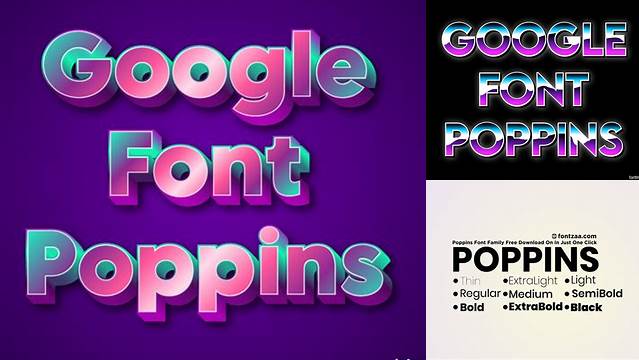
Poppins Font: A Deep Dive Into Google Fonts CSS
Hey guys! Ever wondered about those sleek, modern fonts you see all over the web? Chances are, you've stumbled upon Poppins. And if you're digging into website performance, you might've even looked at how it's loaded using Google Fonts CSS. So, let's get into fonts googleapis com css poppins and break it all down! We will explore every aspect of fonts googleapis com css poppins to give you a complete grasp on its function and optimization.
What is fonts.googleapis.com
?
Before diving into Poppins, let's understand where it lives. fonts.googleapis.com
is Google's dedicated server for hosting web fonts. This Content Delivery Network (CDN) ensures that fonts are delivered quickly and efficiently to users worldwide. Using a CDN like Google Fonts means you don't have to host the font files yourself, saving you bandwidth and server resources. Also, because many sites use Google Fonts, there's a good chance your visitors already have these fonts cached, making page load times even faster. It's a win-win! When a browser requests a font from fonts.googleapis.com
, Google's servers determine the optimal font file based on the user's browser and operating system. This ensures compatibility and the best possible rendering experience. The use of CDNs like Google Fonts is a critical component of modern web development, and fonts googleapis com css poppins is a prime example of how this technology is implemented. Ultimately, understanding how these fonts are served helps developers make informed decisions about performance and user experience.
Diving into the Poppins Font Family
Poppins is a geometric sans-serif typeface. It’s known for its clean lines and modern aesthetic. It's super versatile and works well for headings, body text, and everything in between. Its neutrality makes it a great choice for a wide range of projects, from corporate websites to creative portfolios. The font family includes a wide range of weights, from thin to black, giving you plenty of flexibility in your designs. Each weight has been carefully crafted to ensure readability and visual appeal. Poppins strikes a balance between being modern and approachable, making it a popular choice for designers aiming to create a contemporary yet friendly feel. Using various weights of Poppins can create visual hierarchy and interest in your designs, ensuring that important information stands out. Furthermore, Poppins supports a wide range of characters, making it suitable for international audiences. Its widespread availability through Google Fonts ensures that it is easily accessible and can be implemented across different platforms. Exploring the nuances of the Poppins font family will allow you to take full advantage of its design potential and elevate the overall aesthetics of your projects.
Understanding the CSS Request for Poppins
When you include Poppins via Google Fonts, your browser sends a request to fonts.googleapis.com
for the CSS file. This CSS file contains the @font-face
rules that define how the Poppins font should be loaded and displayed. The @font-face
rules specify the font family name, the URL of the font files, and other properties like font-weight
and font-style
. The CSS file also contains instructions for different font formats (like WOFF and WOFF2) to ensure compatibility across different browsers. By examining the CSS file, you can see exactly how Google Fonts is serving the Poppins font to your website. This level of detail can be helpful for troubleshooting and optimizing font loading. Understanding the structure of the CSS request and the contents of the CSS file is essential for ensuring that Poppins is loaded correctly and efficiently. In addition, analyzing the CSS request can provide insights into potential performance bottlenecks and areas for optimization. By digging into the details of fonts googleapis com css poppins, you can gain a deeper understanding of how web fonts work and how to optimize their delivery.
Optimizing Poppins Font Loading for Performance
Okay, let's talk speed! No one likes a slow website, and font loading can be a big culprit. To optimize Poppins font loading, first, only include the weights you actually need. Every weight you add increases the file size and loading time. Second, use the display: swap
property. This tells the browser to display fallback text while the font is loading, preventing the "invisible text" problem. Third, consider preloading the font. This tells the browser to download the font as early as possible. You can do this by adding a <link rel="preload">
Understanding Google Fonts API and Its Features
The Google Fonts API is a powerful tool that allows you to easily integrate Google Fonts into your website. The API provides a simple way to request fonts and specify the weights and styles you need. It also handles font delivery and optimization automatically. Understanding the Google Fonts API can help you use Google Fonts more effectively and efficiently. Exploring Google Fonts API and its features optimizes the use of fonts googleapis com css poppins.